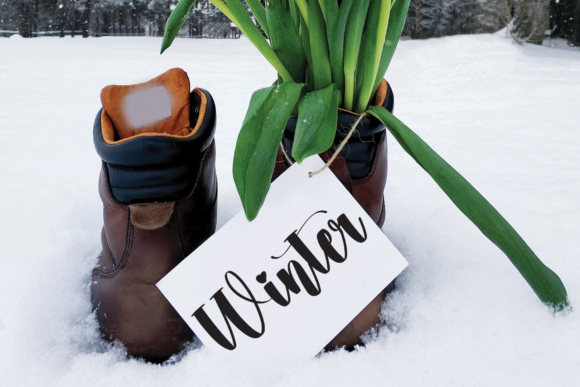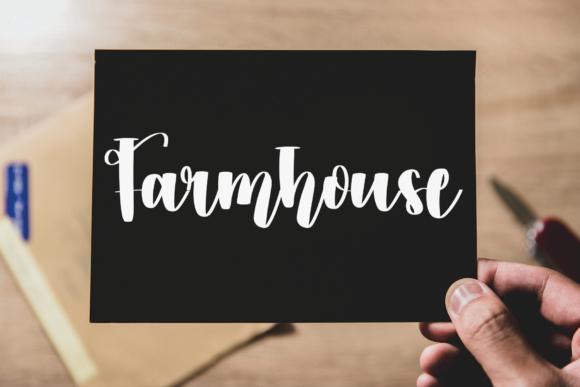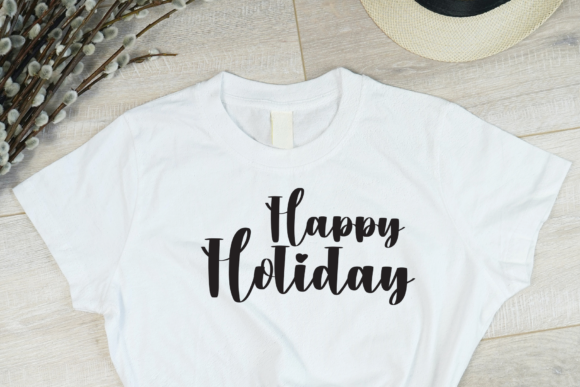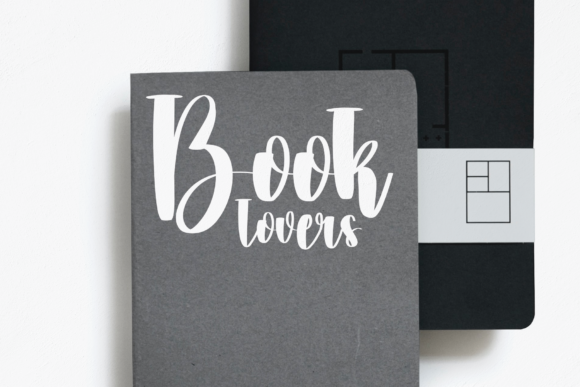
Introducing Autogaraphy Font: Elevate Your Designs with Elegance and Sophistication
In the world of typography, a well-crafted font can make all the difference in elevating your design projects from ordinary to extraordinary. For designers and crafters seeking to infuse their work with a touch of elegance and sophistication, Autogaraphy Font is an exceptional choice. This stunning script font is inspired by timeless classic calligraphy, boasting a contemporary atmosphere and impeccable form that is sure to enhance the beauty of your projects.
The Inspiration Behind Autogaraphy Font
Autogaraphy Font draws its inspiration from the art of traditional calligraphy, where the skillful manipulation of letterforms creates a sense of fluidity and harmony. The font’s creator aimed to capture the essence of classic calligraphy while imbuing it with a modern twist, making it suitable for a wide range of design applications. From elegant wedding invitations and sophisticated branding materials to beautiful digital content and artisanal crafts, Autogaraphy Font is the perfect companion for designers and crafters looking to add a touch of refinement to their work.
Key Features of Autogaraphy Font
So, what sets Autogaraphy Font apart from other script fonts on the market? Here are some of its key features:
- Balanced and Varied: Autogaraphy Font strikes the perfect balance between not being too thin and not too thick. This balance ensures that your text remains legible and visually appealing, even at smaller font sizes.
- Elegant and Sophisticated: With its roots in classic calligraphy, Autogaraphy Font exudes elegance and sophistication. Its flowing lines and carefully crafted letterforms make it an excellent choice for designs that require a touch of luxury.
- Contemporary Atmosphere: While inspired by traditional calligraphy, Autogaraphy Font has a distinctly contemporary feel. This makes it versatile enough to be used in both modern and traditional design contexts.
- Impeccable Form: The font’s design pays close attention to detail, ensuring that each letterform is meticulously crafted to contribute to the overall harmony of the text.
Applications of Autogaraphy Font
The versatility of Autogaraphy Font makes it suitable for a wide array of design projects. Here are some of the areas where this elegant script font can make a significant impact:
- Wedding and Event Stationery: Create beautiful wedding invitations, save-the-date cards, and event posters that set the tone for an elegant and memorable occasion.
- Branding and Packaging: Elevate your brand’s visual identity with a sophisticated logo or packaging design that communicates luxury and quality.
- Digital Content: Enhance your website, blog, or social media content with elegant typography that engages your audience and adds a professional touch.
- Crafting and DIY Projects: Whether you’re creating handmade cards, crafting beautiful journal entries, or designing unique DIY projects, Autogaraphy Font can add a touch of elegance and personality to your work.
Autogaraphy Font is more than just a script font; it’s a tool for designers and crafters to create stunning, elegant designs that capture the essence of timeless classic calligraphy with a contemporary twist. Its balanced and varied strokes, along with its impeccable form, make it an excellent choice for anyone looking to add sophistication and elegance to their projects. Whether you’re working on wedding stationery, branding materials, digital content, or crafting and DIY projects, Autogaraphy Font is sure to enhance the beauty and appeal of your work.